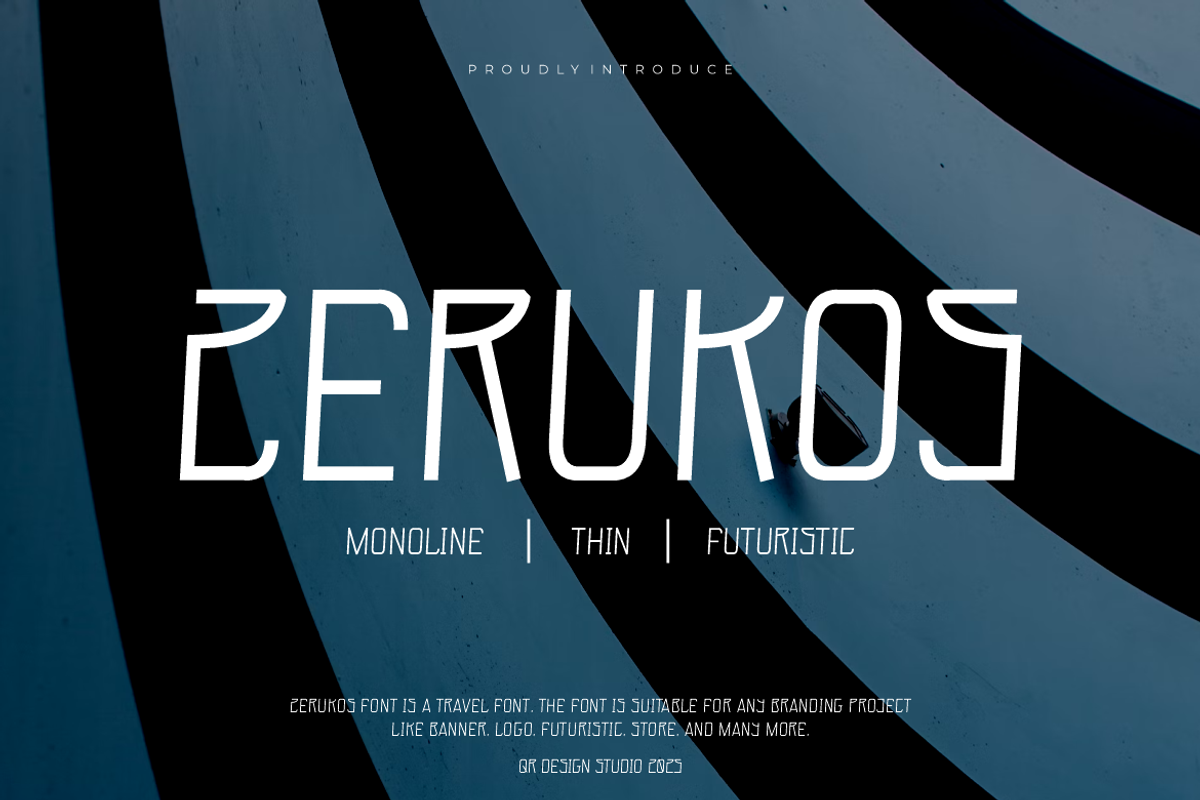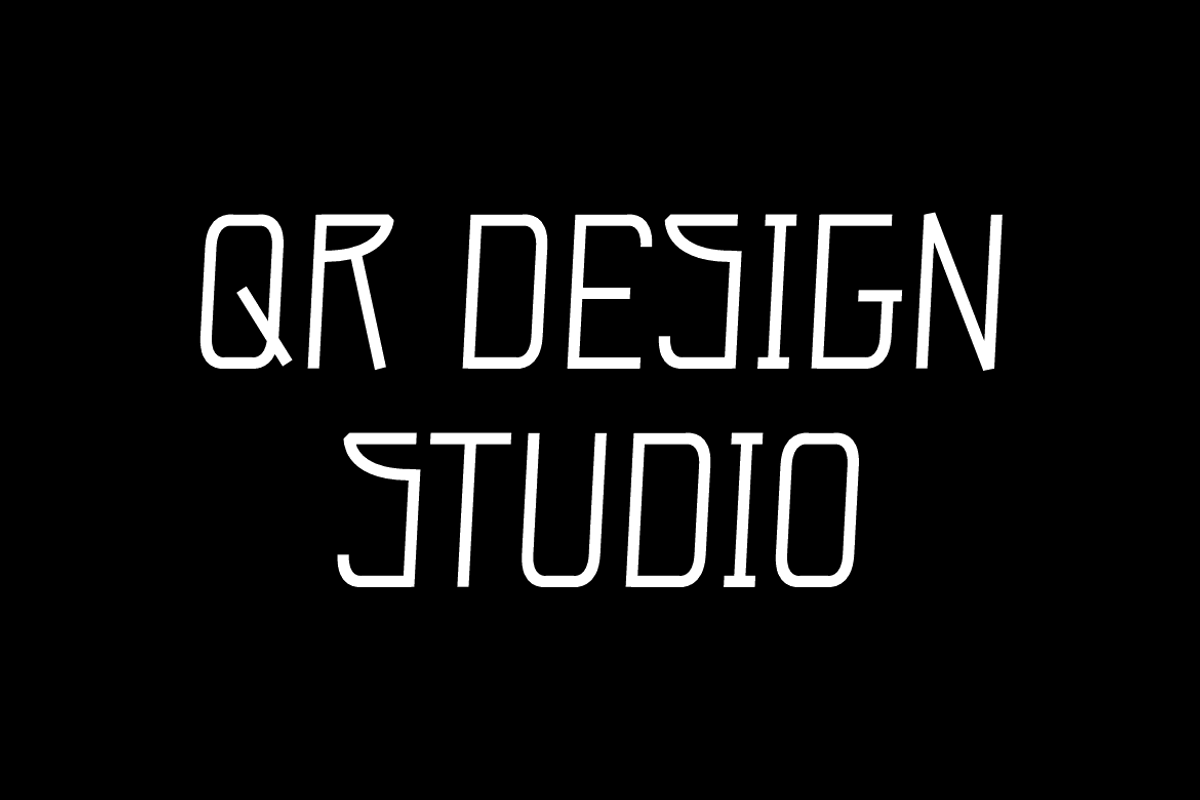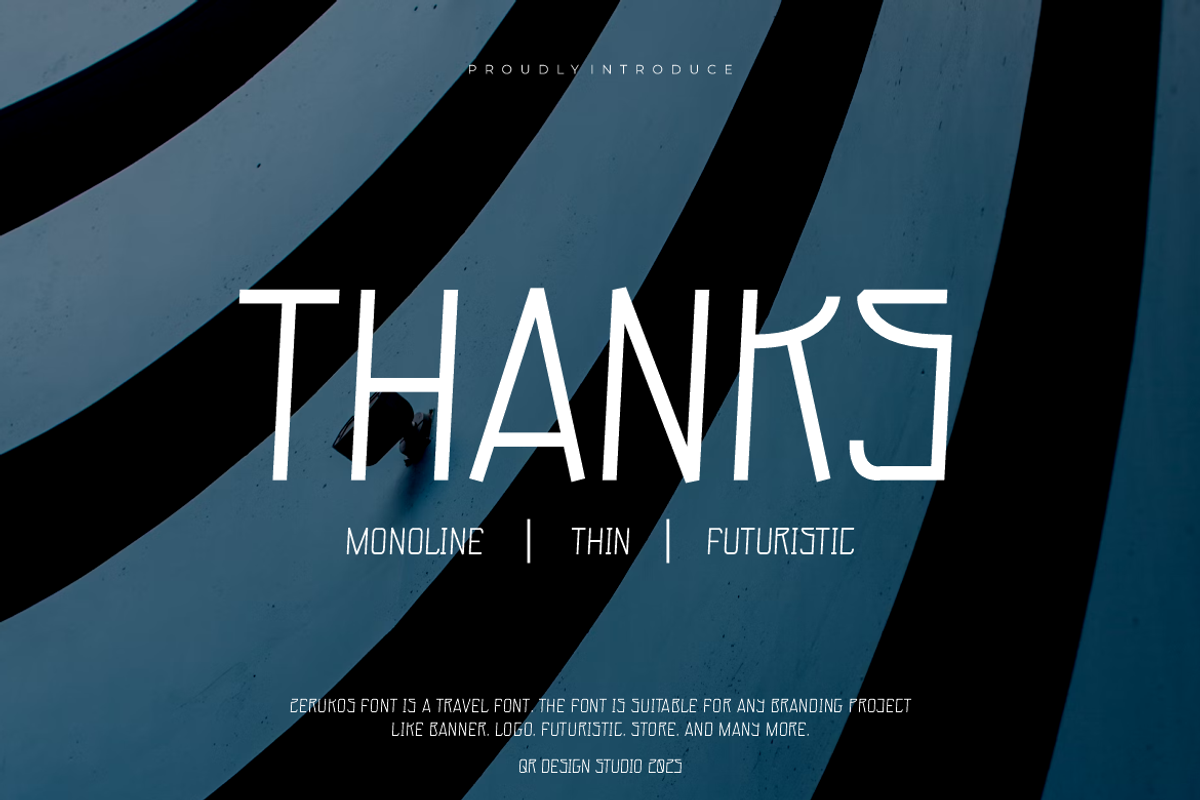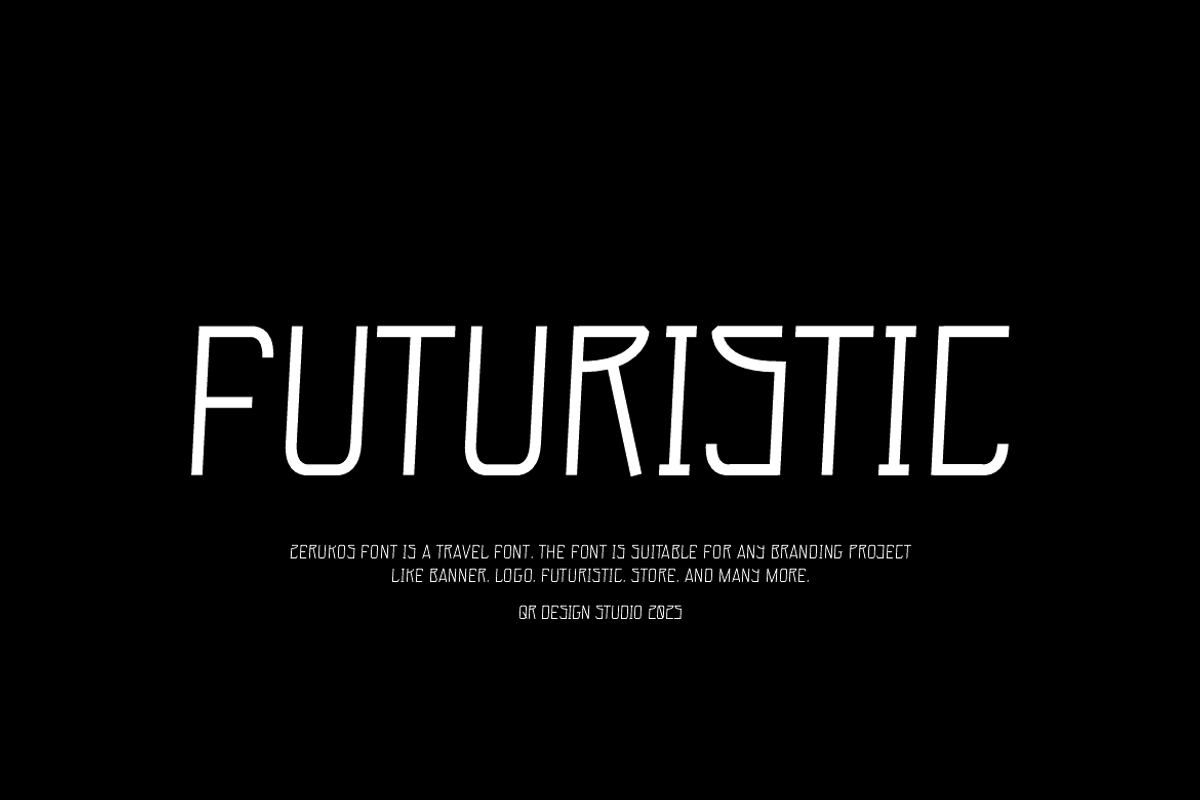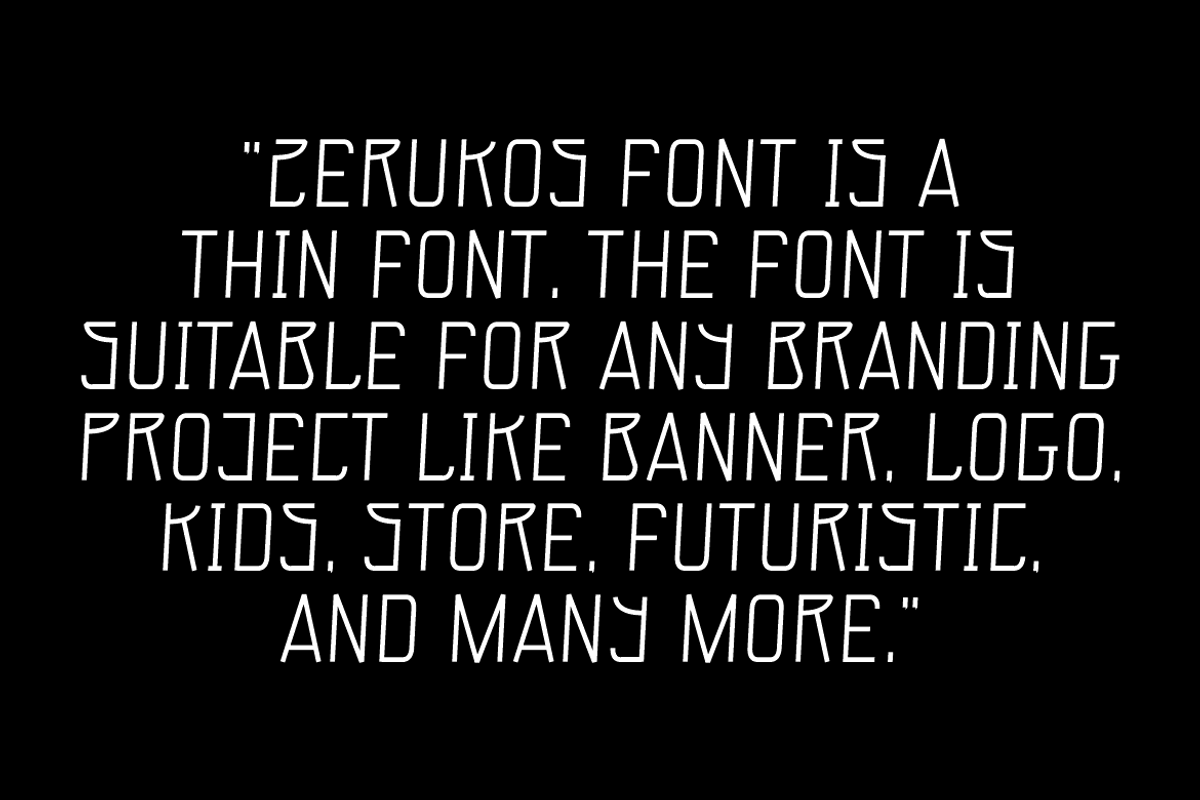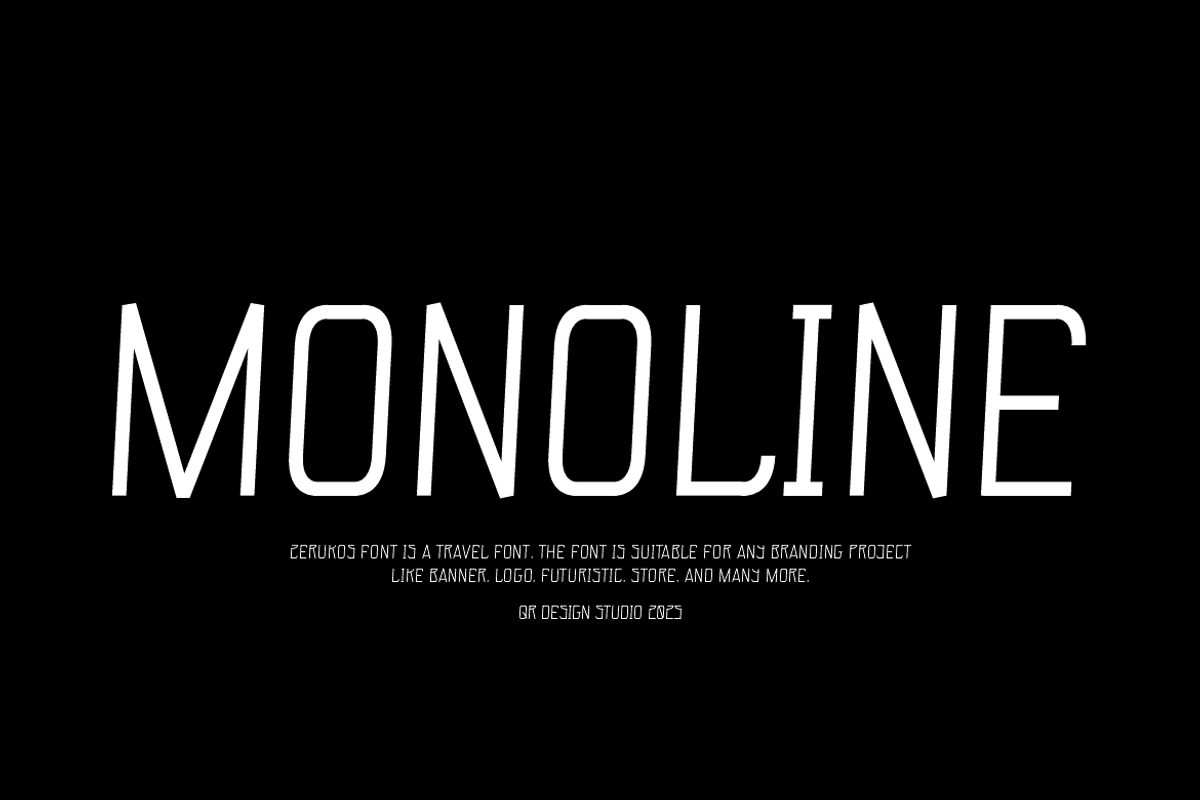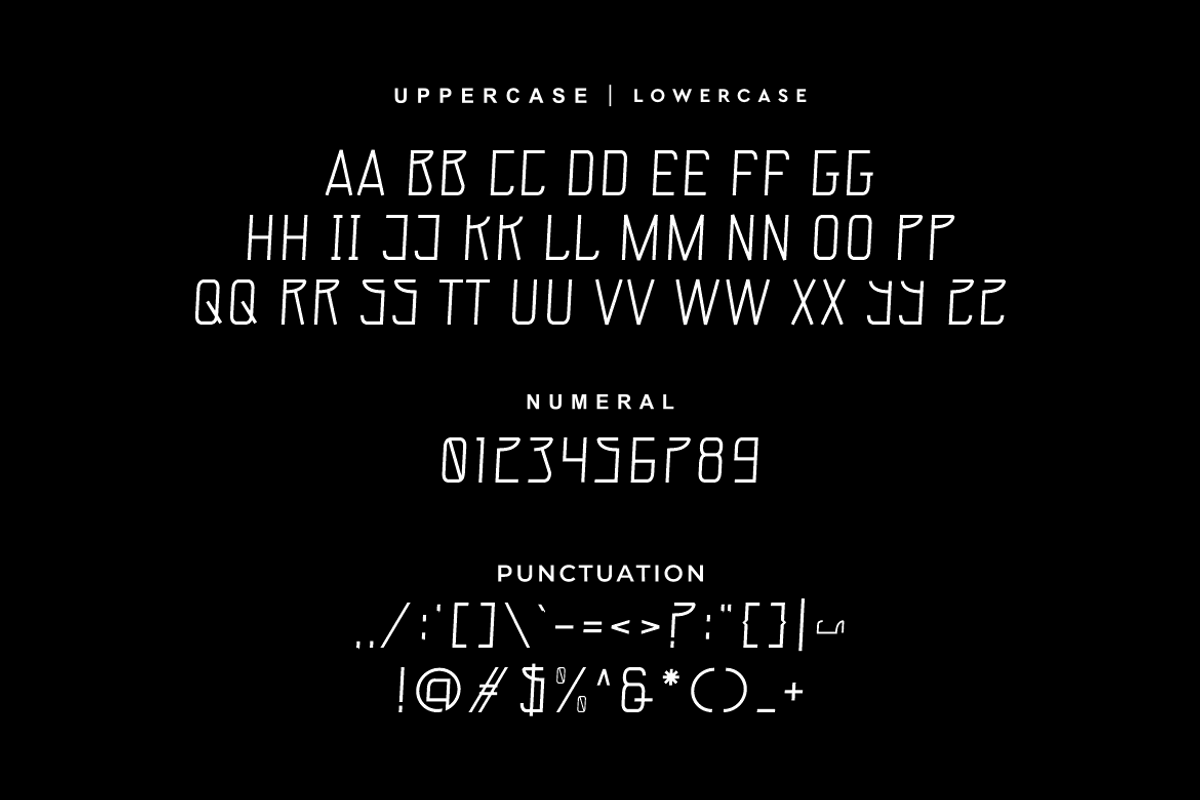
Zerukos - Monoline Thin Font
Zerukos Font is a thin and authentic display font. The font is suitable for any branding project like poster, logo, sport, and many more. Outstanding in a wide range of contexts.